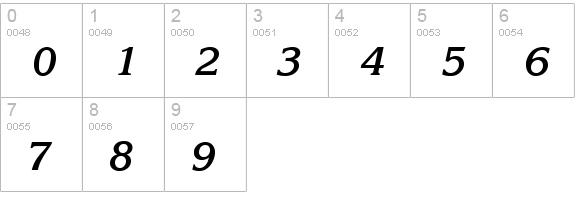
Korinna* Kursiv Bold Font Details
Korinna* Kursiv Bold is a strong, high-contrast variant in the Korinna* typeface family \xE2\x80\x94 well suited to headlines, attention-grabbing titles, and strong calls-to-action.
Korinna Kursiv Bold font is a stunning and elegant typeface that exudes sophistication and style. Its bold and italicized design commands attention, making it perfect for headlines, titles, and emphasis in various design projects. The unique combination of classic and modern elements in this font gives it a timeless appeal that is sure to elevate any creative work. What makes Korinna Kursiv Bold font even more appealing is that it is available for free download at FontsMarket.com. This means that you can easily access this high-quality font without any cost, allowing you to enhance your designs without breaking the bank. Whether you're working on branding materials, editorial layouts, or digital graphics, Korinna Kursiv Bold font will add a touch of sophistication and elegance to your projects. Download it now and unleash your creativity with this versatile and eye-catching typeface.